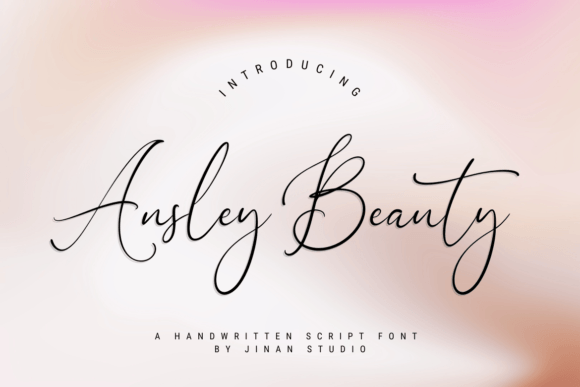
Introducing Ansley Beauty Font: The Perfect Choice for Romantic Designs
Are you looking for a font that can add a touch of romance and elegance to your designs? Look no further than Ansley Beauty Font. This lovely, stylish, and greatly detailed handwritten font is perfect for creating beautiful and eye-catching designs for various occasions. In this article, we’ll explore the features and benefits of Ansley Beauty Font and how it can elevate your designs to the next level.
What Makes Ansley Beauty Font Special?
Ansley Beauty Font is a unique and exquisite handwritten font that is designed to add a romantic touch to your creations. Its elegant and flowing lines make it perfect for designs that require a personal and sophisticated touch. Here are some of the key features that make Ansley Beauty Font stand out:
- Handwritten style: Ansley Beauty Font has a beautiful handwritten style that gives it a personal and unique touch.
- Elegant lines: The font features elegant and flowing lines that make it perfect for romantic designs.
- Greatly detailed: Ansley Beauty Font is designed with great attention to detail, making it perfect for high-quality designs.
- Versatile: This font can be used for a wide range of designs, including Valentine’s theme designs, wedding invitations, photography, logos, and more.
How to Use Ansley Beauty Font in Your Designs
Ansley Beauty Font is a versatile font that can be used in various design projects. Here are some ideas on how to use this beautiful font:
- Valentine’s Day designs: Create romantic and eye-catching designs for Valentine’s Day, including greeting cards, posters, and social media graphics.
- Wedding invitations: Use Ansley Beauty Font to create beautiful and elegant wedding invitations that will set the tone for the big day.
- Photography: Add a touch of elegance to your photography with Ansley Beauty Font. Use it to create beautiful captions, titles, and descriptions.
- Logos: Create a unique and memorable logo for your business or brand using Ansley Beauty Font.
- Stationery: Use Ansley Beauty Font to create beautiful and elegant stationery, including letterheads, envelopes, and notecards.
The Benefits of Using Ansley Beauty Font
Ansley Beauty Font offers several benefits that make it a great choice for designers. Here are some of the advantages of using this font:
- Romantic touch: Ansley Beauty Font adds a romantic touch to your designs, making it perfect for designs that require a personal and sophisticated touch.
- Elegance: The font features elegant and flowing lines that give your designs a high-end look.
- Versatility: Ansley Beauty Font can be used for a wide range of designs, making it a great investment for designers.
- Easy to read: The font is easy to read, making it perfect for designs that require a clear and concise message.
Tips and Tricks for Using Ansley Beauty Font
Here are some tips and tricks for using Ansley Beauty Font in your designs:
- Pair it with other fonts: Ansley Beauty Font can be paired with other fonts to create a unique and interesting look.
- Use it for headings: The font is perfect for headings and titles, making it a great choice for designs that require a clear and concise message.
- Experiment with colors: Ansley Beauty Font looks great in a variety of colors, so don’t be afraid to experiment and find the perfect color for your design.
- Use it for digital and print designs: The font can be used for both digital and print designs, making it a great investment for designers.
In conclusion, Ansley Beauty Font is a beautiful and elegant handwritten font that is perfect for adding a romantic touch to your designs. Its elegant lines, greatly detailed style, and versatility make it a great choice for designers. Whether you’re creating Valentine’s Day designs, wedding invitations, photography, logos, or more, Ansley Beauty Font is a great investment that will elevate your designs to the next level.